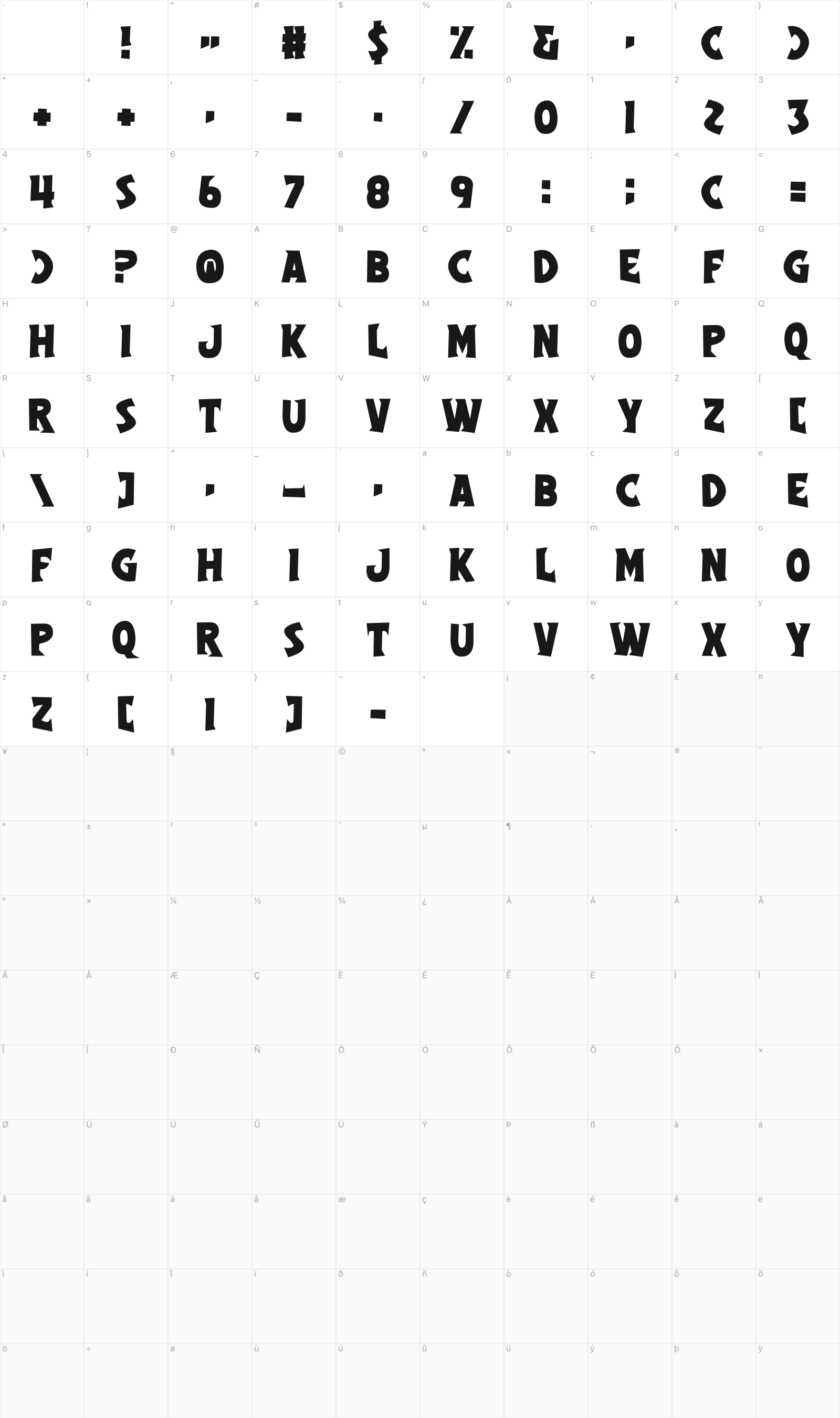
Segreteria
Segreteria is a bold, heavy comic-style display face from Chequered Ink with uppercase letterforms that feel like they belong in a cartoon title card. The letters are chunky and slightly quirky, with just enough irregularity to keep things playful without losing clarity. Built for headlines, posters, and anywhere you need big, loud type that doesn't take itself too seriously.